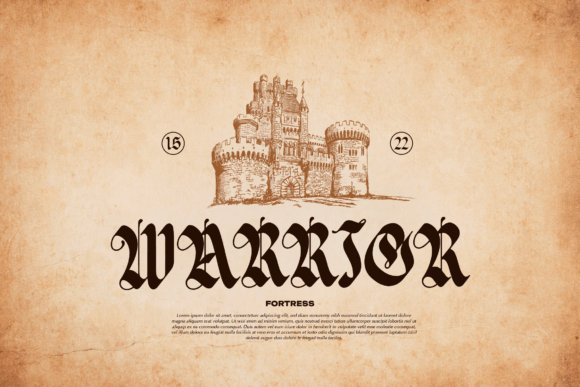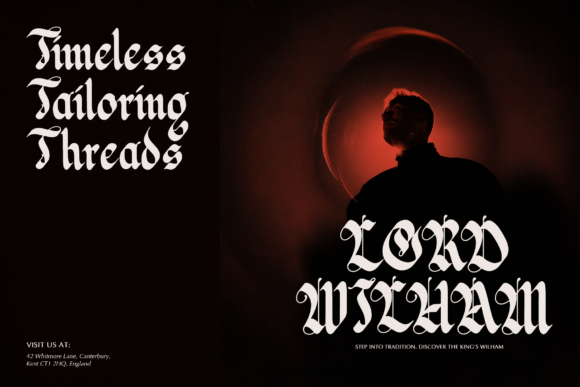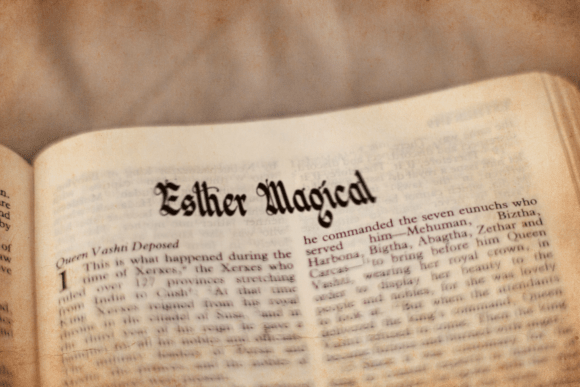
Introduction to Kejddart Font
Kejddart is a striking blackletter font that fuses historical elegance with modern design finesse.
Featuring ornate flourishes, sharp strokes, and a regal presence, it’s perfect for branding, book covers, posters, and any project needing a touch of Gothic drama With 260 glyphs, alternates, and multilingual support, Kejddart delivers both versatility and sophistication.
Key Features of Kejddart Font
Why Choose Kejddart Font?
Kejddart Font offers exceptional quality and versatility, making it a valuable addition to your design toolkit. Whether you’re creating for personal projects or commercial use, Kejddart Font delivers professional results.